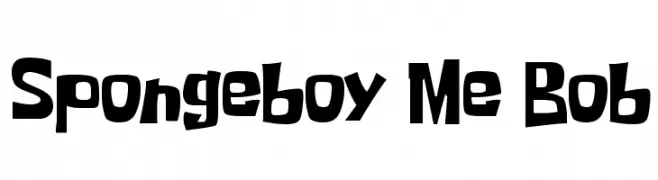
A playful, shadowed font with a bold, artistic style.
A decorative font with a shadow effect, blending script and display styles.
A bold, brush-style font with a hand-drawn, energetic appearance.
A bold, modern sans-serif font with a condensed, geometric style.
A bold, geometric typeface with strong, uniform strokes and modern appeal.
A bold, italicized font with strong, angular lines and a modern style.
A modern, italic font with a condensed and dynamic style.
A modern, geometric sans-serif font with a clean and narrow design.
A sleek, modern italic font with a streamlined and dynamic appearance.
A playful, segmented font with a hand-drawn, whimsical style.
A playful, handwritten font with irregular strokes and a whimsical style.
A playful, hand-drawn font with bold, rounded letters and a sketchy outline.
A festive script font with elegant, flowing letters and holiday-themed symbols.
Festive, star-accented script font with holiday-themed embellishments.
A bold, three-dimensional font with a ghostly shadow effect.
A bold, geometric typeface with angular shapes and sharp edges.
A bold, geometric font with a futuristic and modern design.
A whimsical and decorative font with playful curves and ornate details.
A bold, playful font with chunky outlines and a whimsical, cartoonish style.
A bold, playful font with chunky, irregular shapes and a whimsical style.
A bold, geometric font with a futuristic and digital aesthetic.
A playful, hand-drawn brushstroke font with a textured, sketch-like appearance.
An elegant and flowing script font with intricate letterforms.
A bold, futuristic font with geometric and angular design elements.
A bold, geometric 3D font with a modern and striking appearance.
A bold, 3D italic font with a futuristic and dynamic style.
A bold, futuristic font with sharp angles and outlined characters.
A bold, italicized font with a futuristic and dynamic style.
A bold, geometric font with a modern and powerful aesthetic.
A bold, italicized font with a modern, dynamic style.
A bold, chrome-inspired font with a futuristic, retro aesthetic.